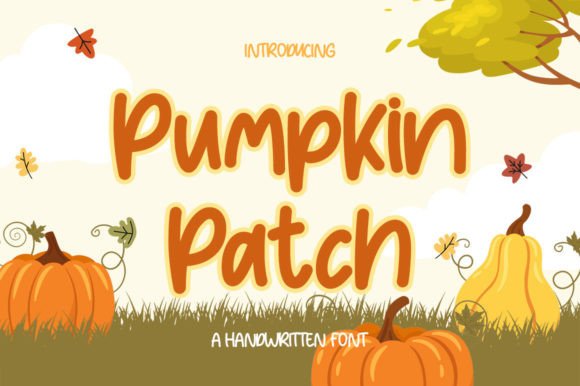
Dive into the enchanting world of Pumpkin Patch Font, a captivating handwritten font that will transform your creative visions into heartwarming realities. This script font, meticulously crafted by Graphix Line Studio, exudes a charm that is both elegant and authentic, making it the perfect choice for adding a personal touch to your designs.
Picture this: a chalkboard filled with inspiring quotes, each word flowing effortlessly in the graceful curves of Pumpkin Patch Font. The authentic look of this font will transport you back to simpler times, evoking a sense of nostalgia and warmth. Whether you're a teacher seeking to engage your students or a designer yearning to create heartfelt messages, Pumpkin Patch Font is your trusty companion.
With its carefully designed characters, Pumpkin Patch Font captures the essence of handwritten notes, adding a touch of intimacy and authenticity to your projects. Its versatility extends beyond chalkboard quotes, making it an excellent choice for teaching materials, greeting cards, wedding invitations, and even social media graphics. The possibilities are endless, limited only by your imagination.
Harness the power of Pumpkin Patch Font to create designs that speak to the heart. Its elegant strokes and charming imperfections will leave a lasting impression on your audience, evoking emotions and igniting connections. Whether you're a seasoned designer or just starting your creative journey, Pumpkin Patch Font is the key to unlocking your full potential.
Don't let this opportunity pass you by. Embrace the beauty of Pumpkin Patch Font today and embark on a creative adventure that will leave you inspired and fulfilled. Let your designs blossom with the authenticity and charm of this remarkable font.